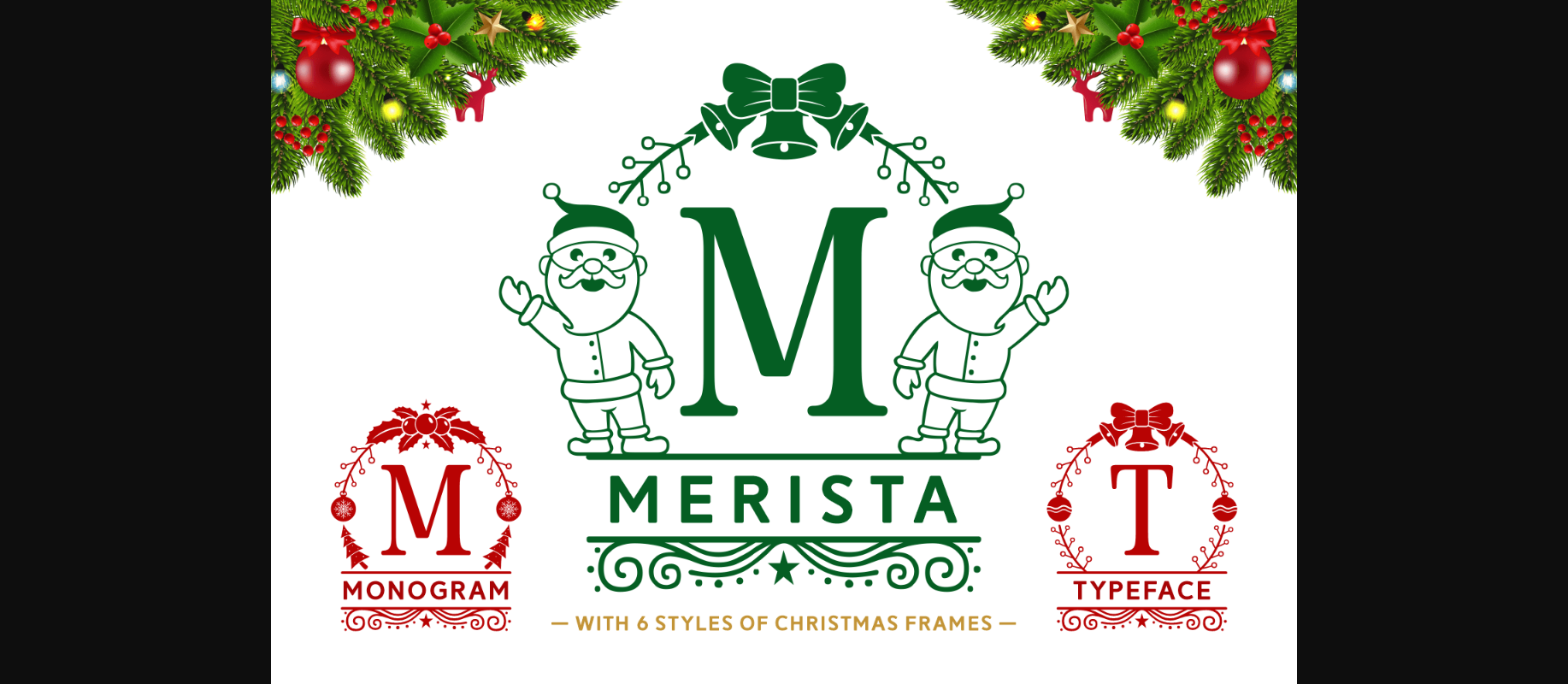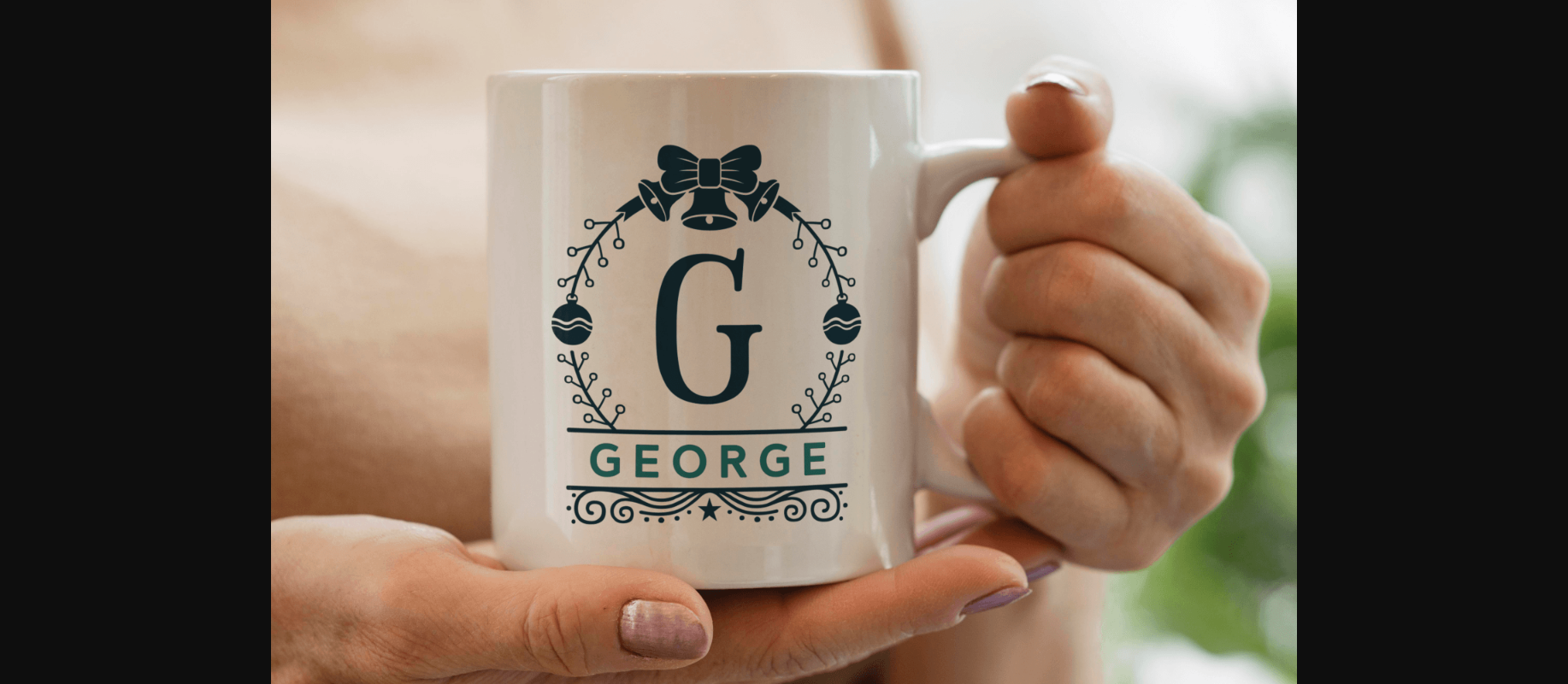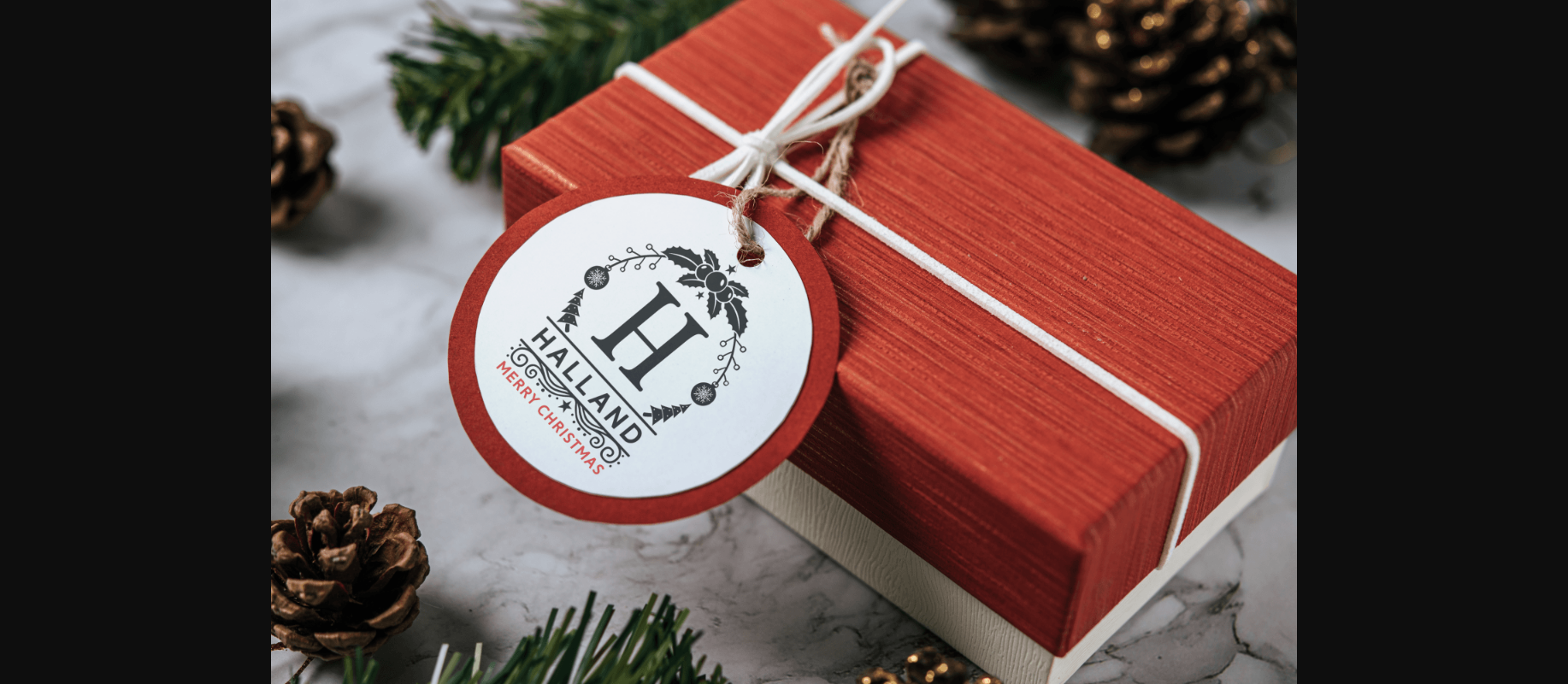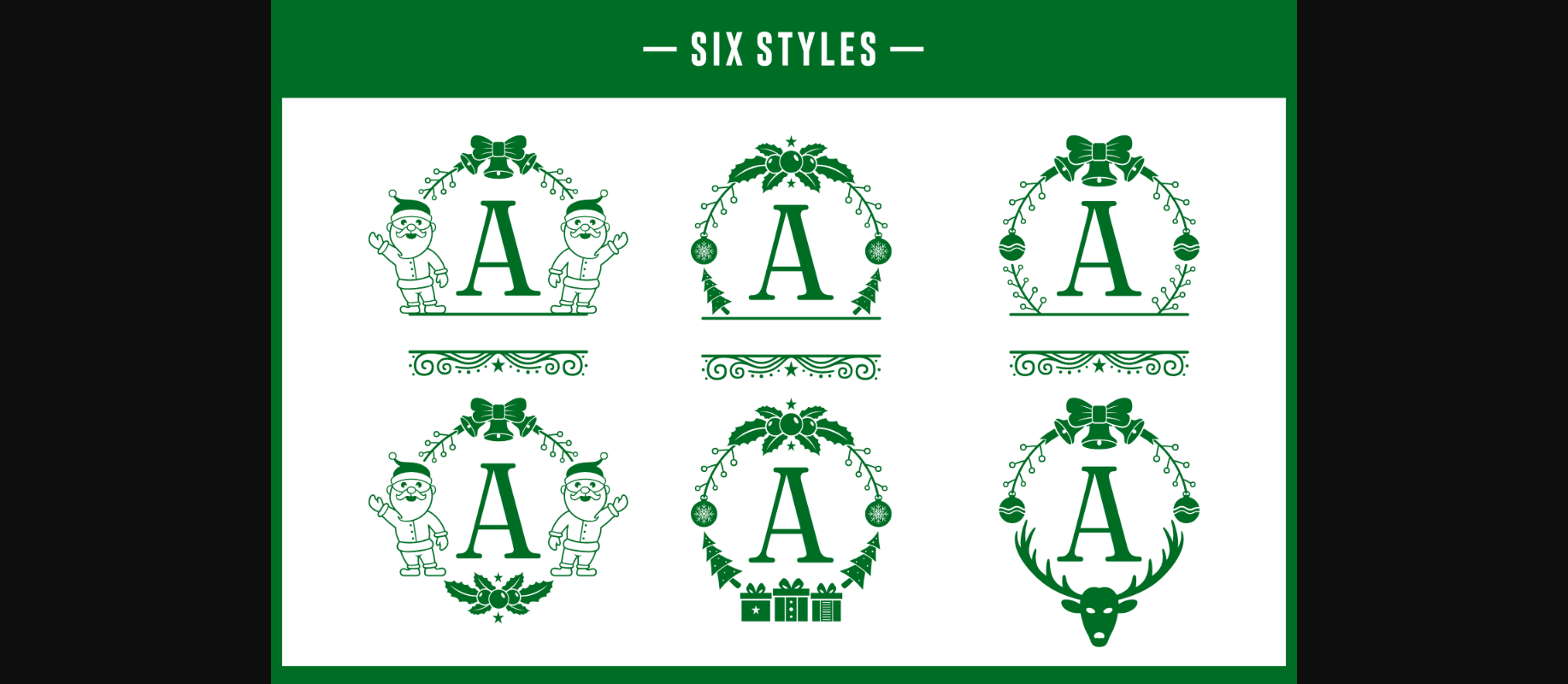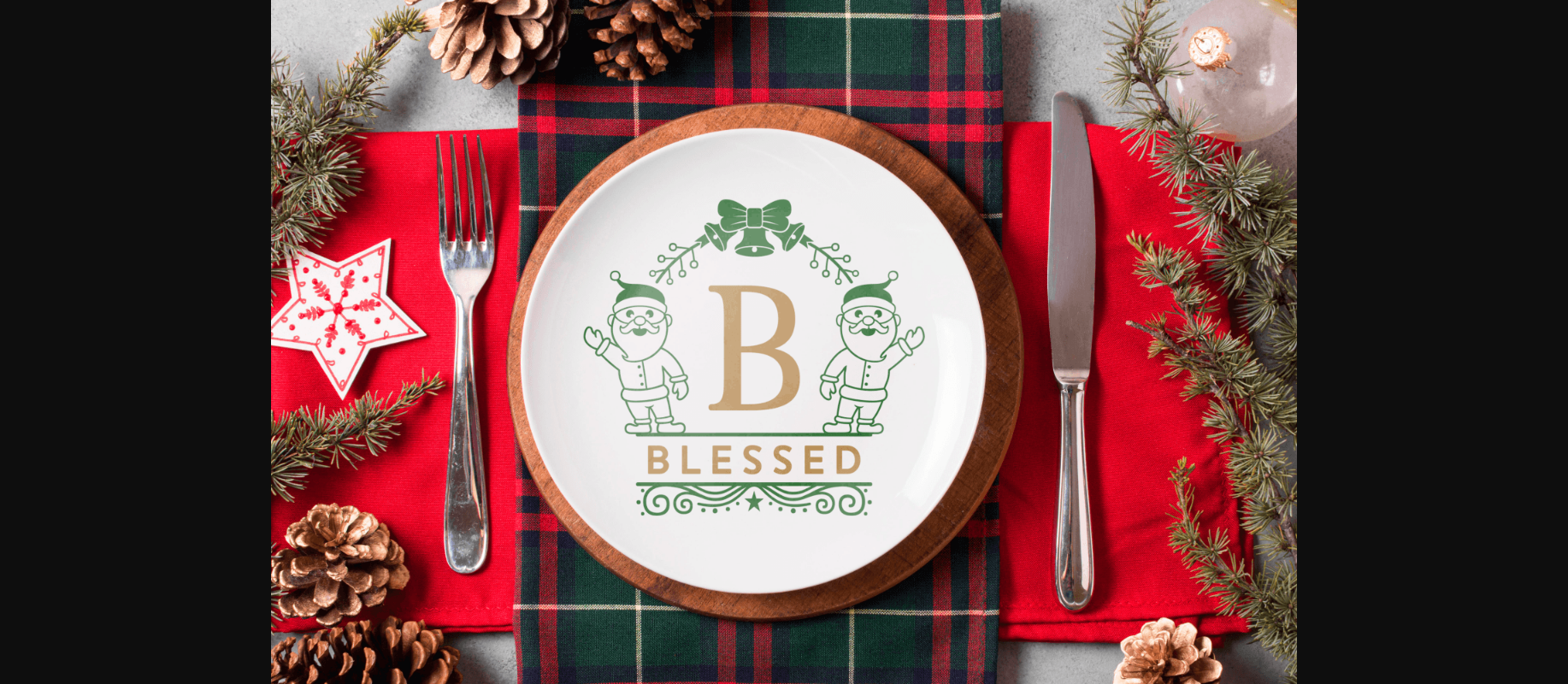
Merista Font
About Merista Font
Merista is a festive and sweet monogram decorative font. Whether you’re using it for crafts, digital design, presentations, or making greeting cards, this font has the potential to become your favorite go-to font, no matter the occasion!